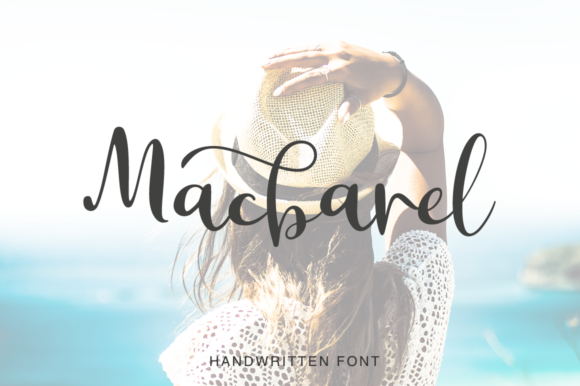
Experience the enchanting world of Macbarel Font, an elegant handwritten masterpiece that will transform your creative visions into captivating realities. Immerse yourself in the beauty of its graceful strokes, each letter a testament to the artistry of Pasha Larin. With Macbarel Font, you'll unlock a world of endless possibilities, from branding and decorating projects to wedding invitations and blog posts.
Indulge in the elegance of Macbarel Font, where each character dances across the page with a unique charm. Its script-like appearance adds a touch of sophistication and personality to any project, making it the perfect choice for those seeking a font that speaks volumes. Let Macbarel Font elevate your designs to new heights, captivating your audience with its timeless allure.
Step into a world of boundless creativity with Macbarel Font. Its versatility knows no bounds, adapting seamlessly to various projects and themes. Unleash your imagination and watch as your words come alive with an artistic flair that sets them apart. Whether you're designing logos, creating social media graphics, or crafting eye-catching headlines, Macbarel Font will leave an unforgettable impression.
With Macbarel Font, you'll find the perfect harmony between beauty and functionality. Its meticulously crafted characters ensure readability and clarity, while its elegant style adds a touch of sophistication to any project. Experience the joy of seamless integration as Macbarel Font complements your designs effortlessly. Let your words flow effortlessly, captivating your audience with a visual masterpiece that speaks to the heart.
Embrace the artistry of Macbarel Font and elevate your creative projects to new heights. Its captivating curves and delicate flourishes will weave a spell of enchantment, leaving your audience spellbound. Dive into a world of limitless possibilities, where your imagination can run wild. Let Macbarel Font be your muse, inspiring you to create masterpieces that touch the soul.